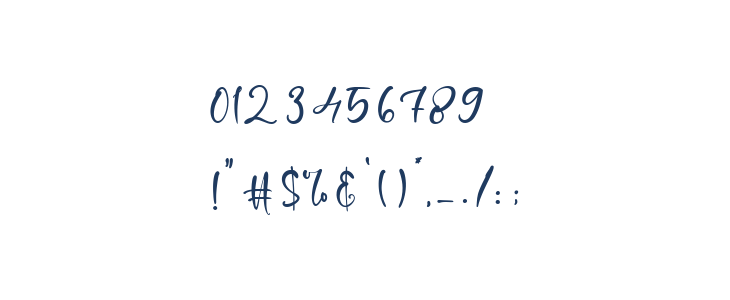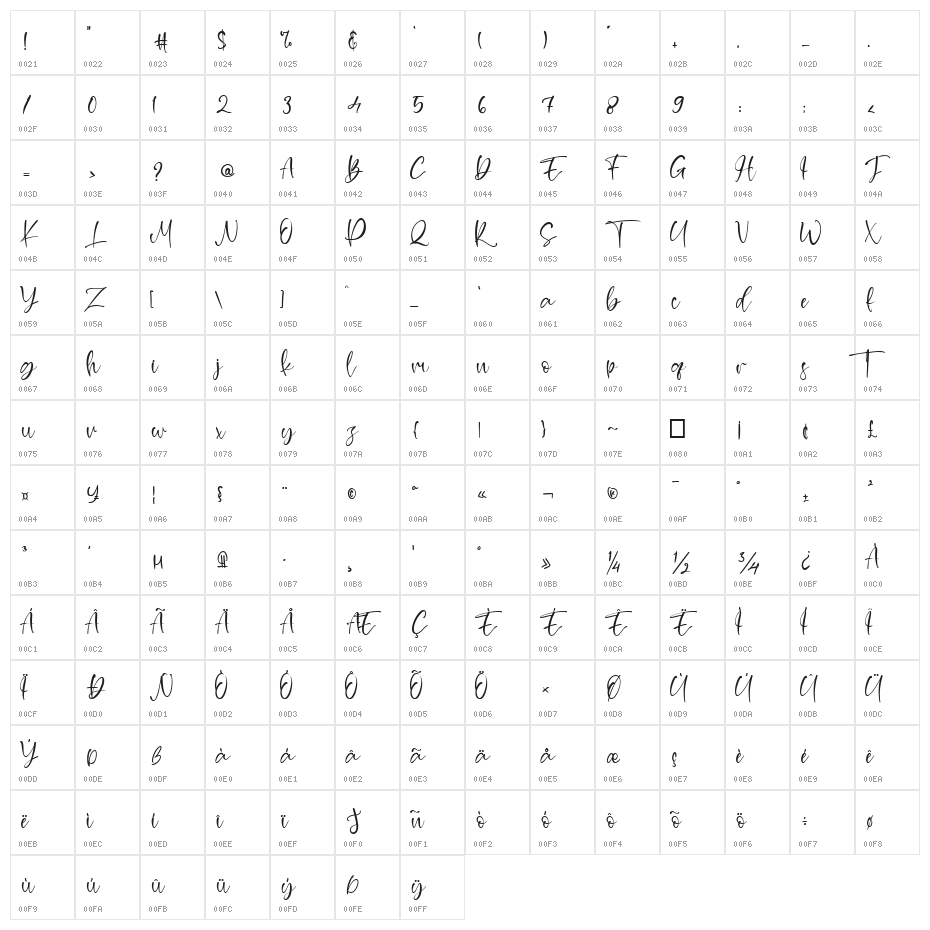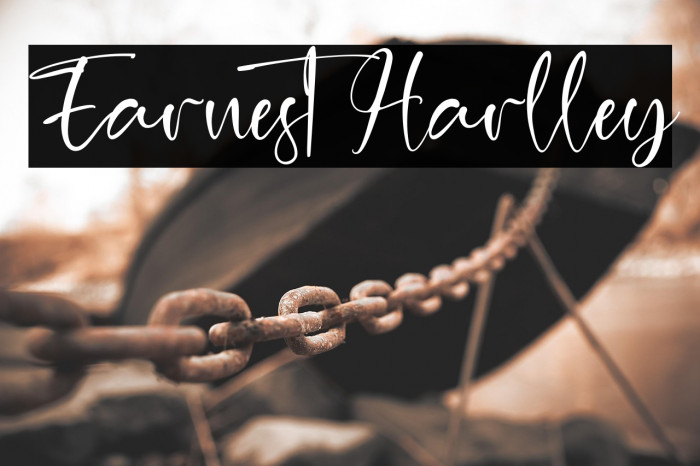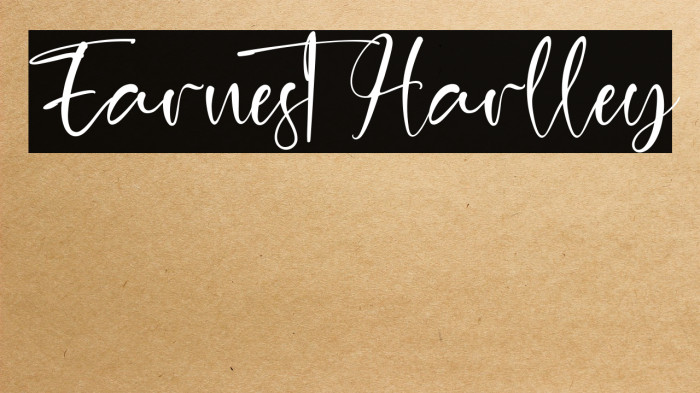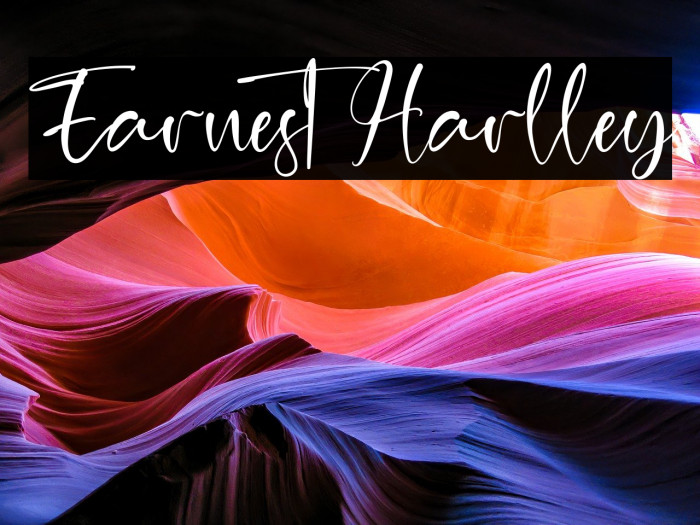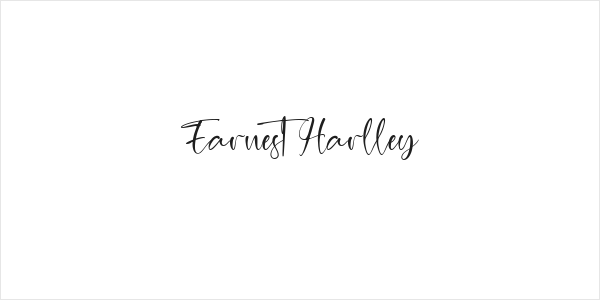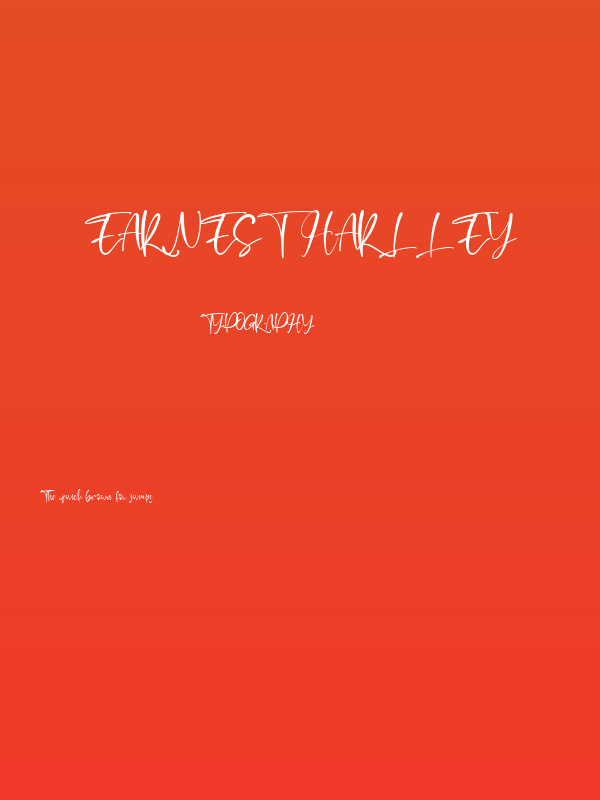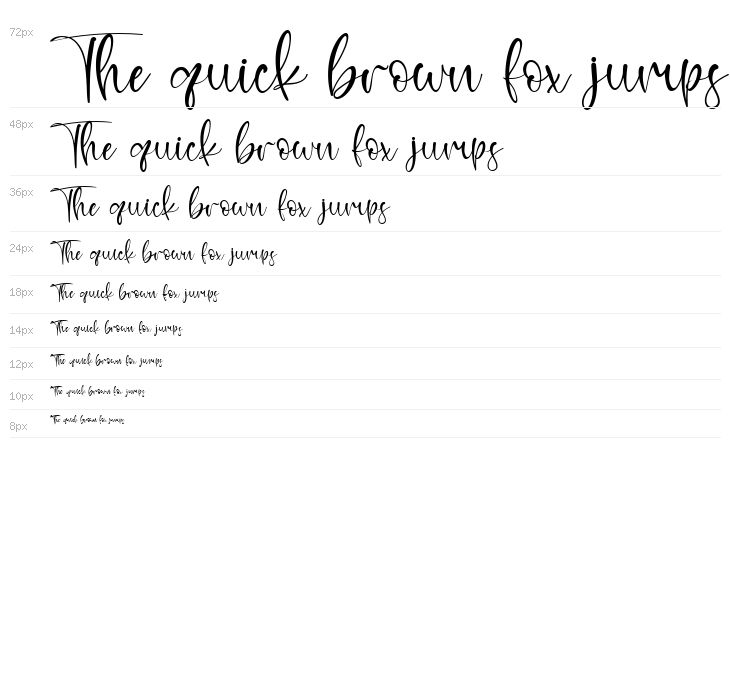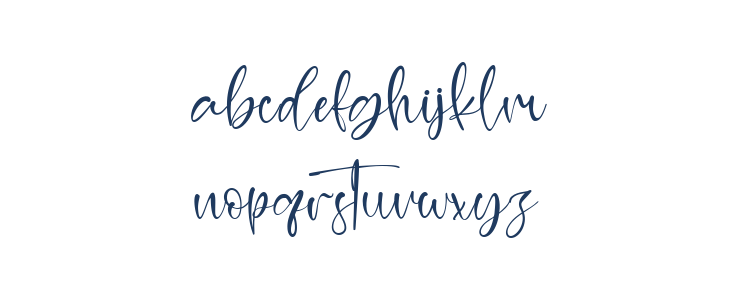
Earnest Harlley Font
Earnest Harlley Description
This font exudes a lively and expressive character, with its flowing, cursive style that mimics the fluidity of natural handwriting. The uppercase letters are bold and dynamic, featuring a playful mix of thick and thin strokes that add a sense of movement and energy. The lowercase letters maintain a consistent flow, with elegant loops and curves that enhance its handwritten appeal. Numbers and special characters are crafted with the same attention to detail, ensuring a cohesive look throughout. This font is perfect for projects that require a personal touch, such as invitations, greeting cards, or branding materials that aim to convey warmth and creativity.